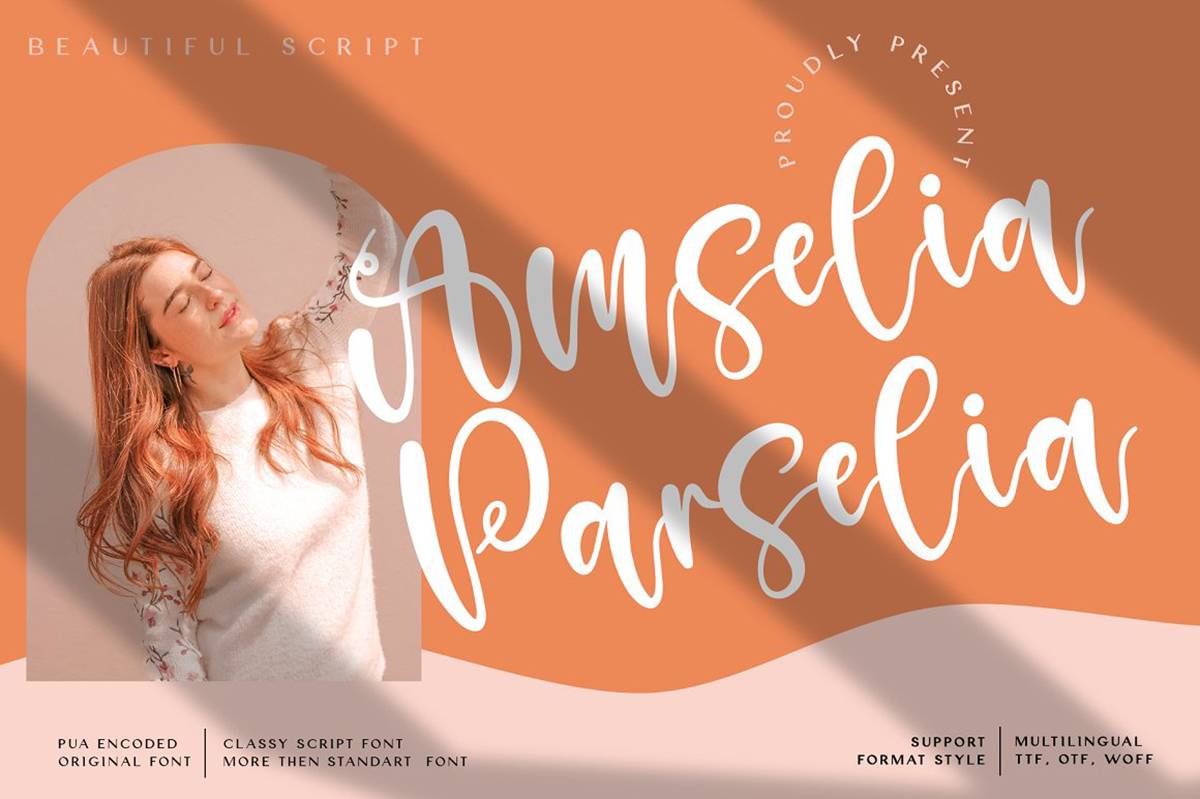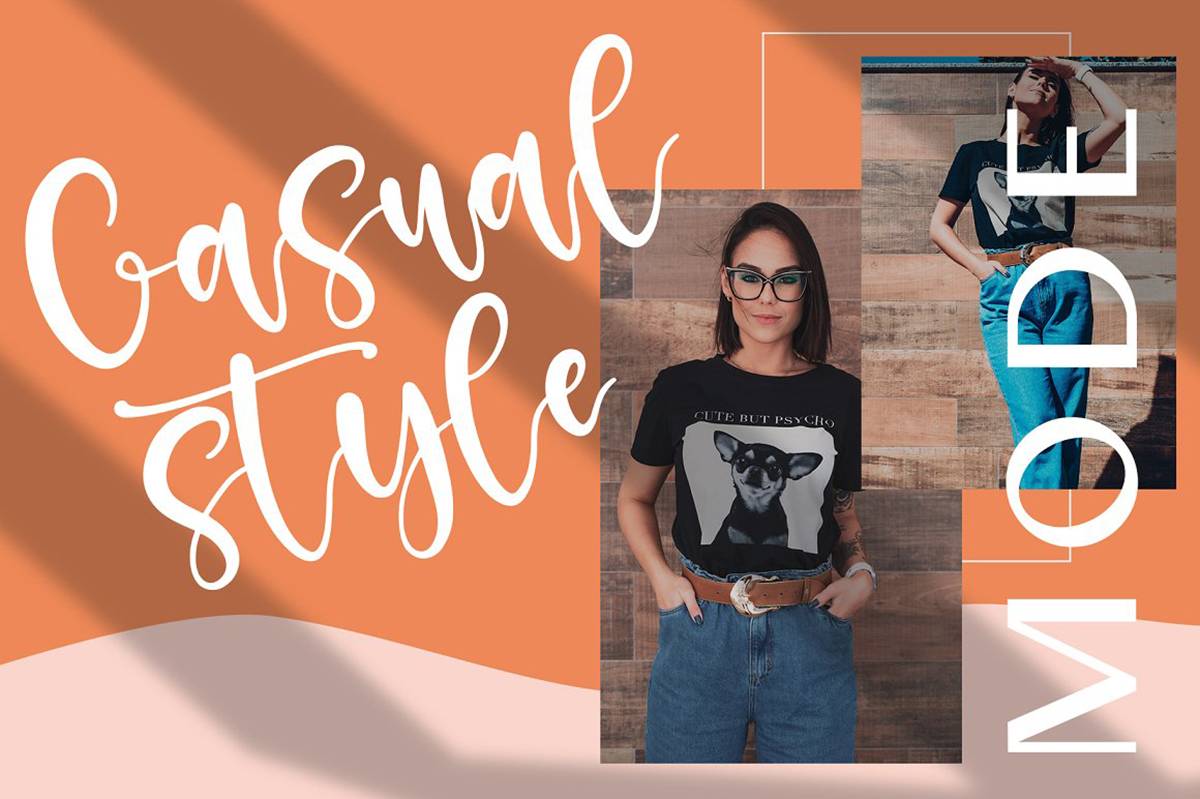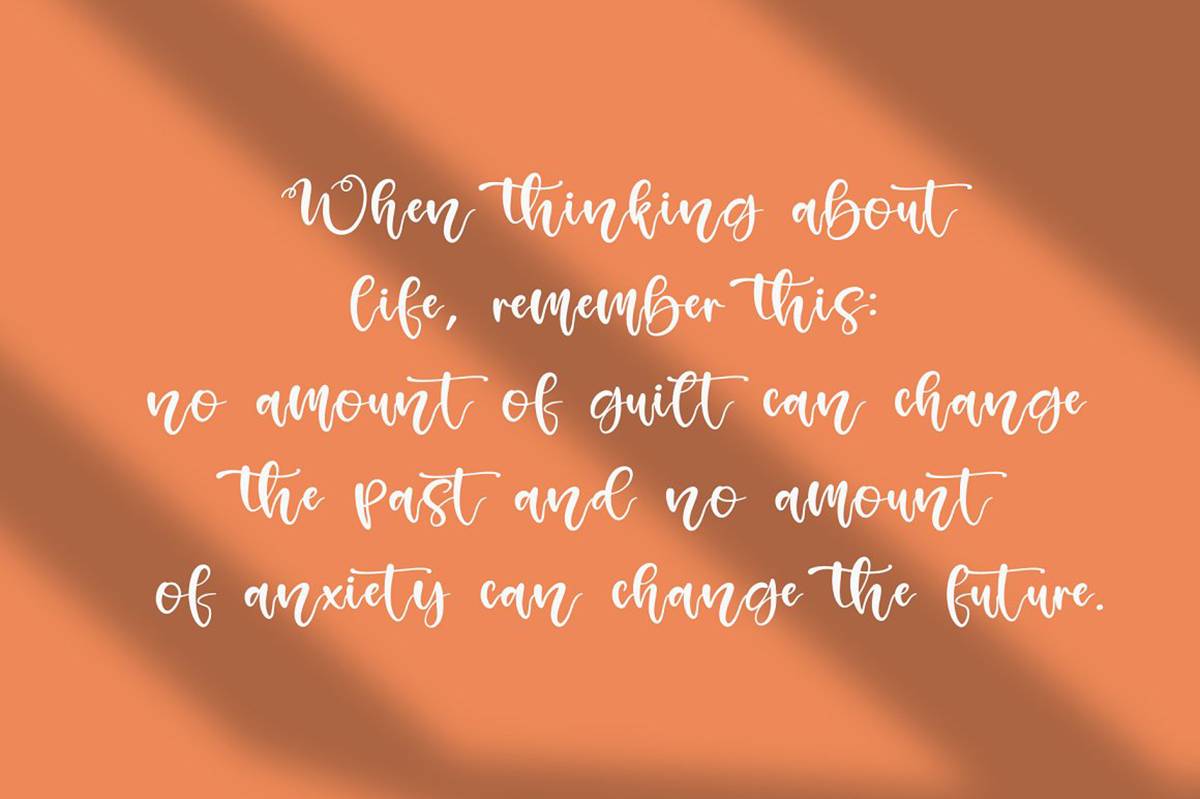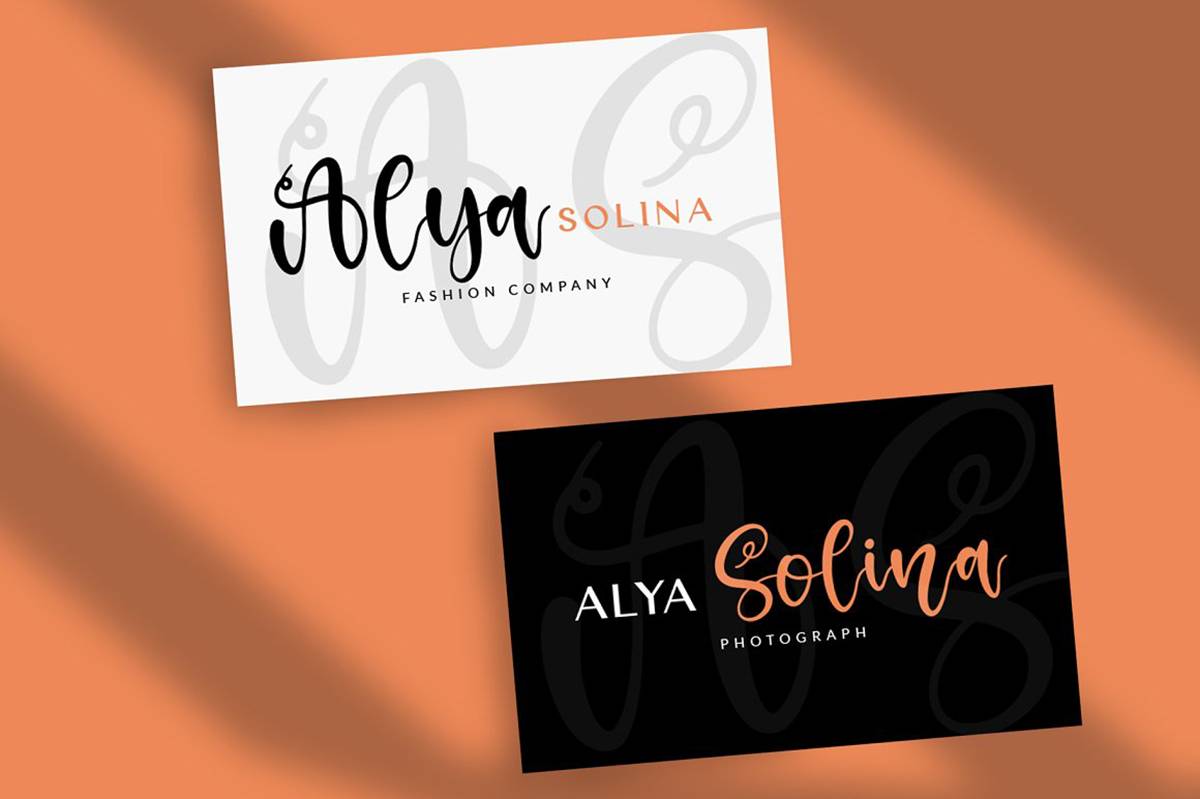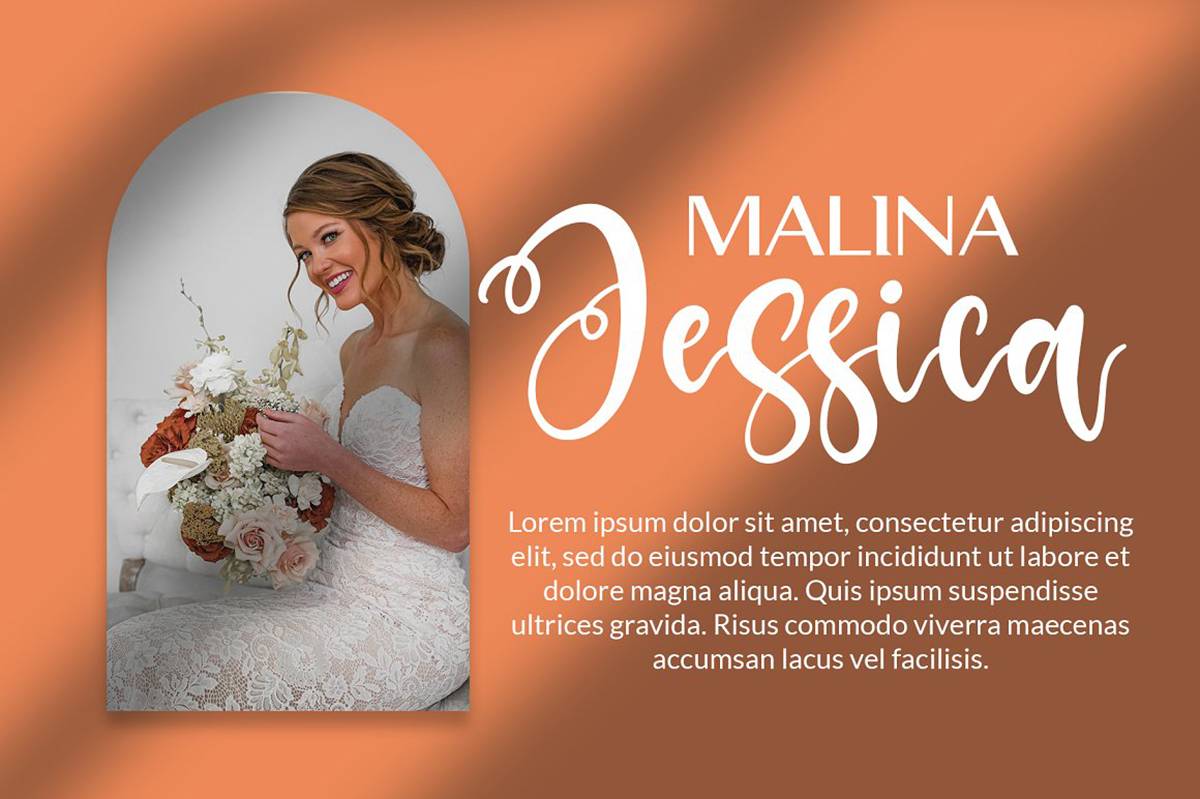
Amselia Parselia is a stylish script font with elegant, flowing strokes and playful flourishes that give it a lively yet sophisticated feel. Its moderate weight and natural, handwritten look make it ideal for invitations, branding, and headlines where a personal, artistic touch is desired. This font works beautifully in creative and feminine contexts, adding charm and a sense of individuality to any design.
Amselia Parselia Font